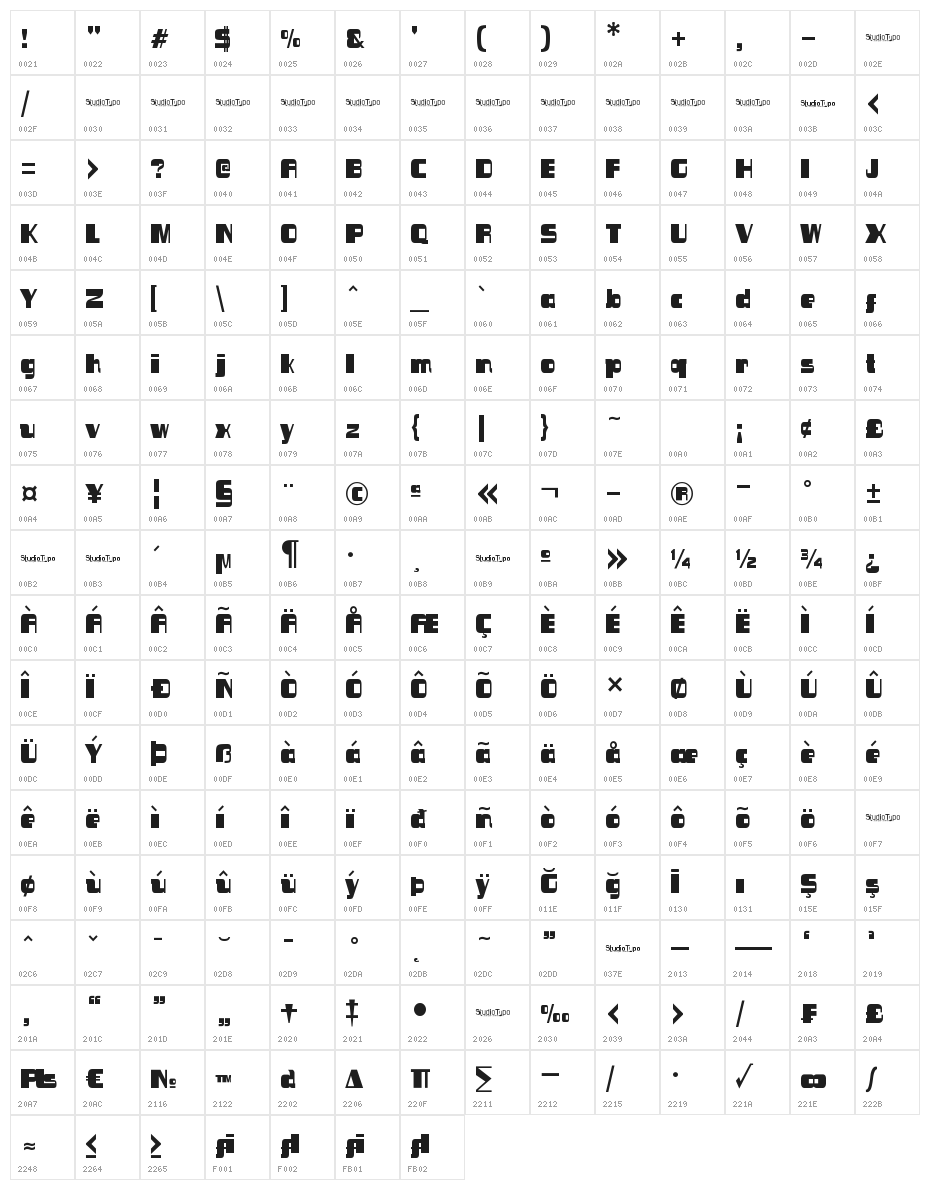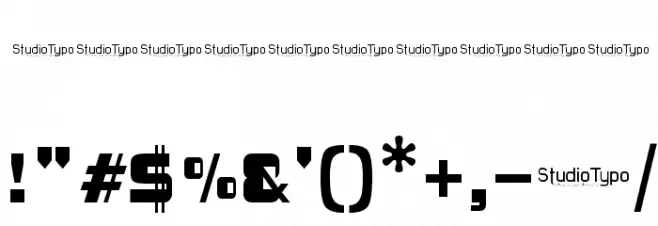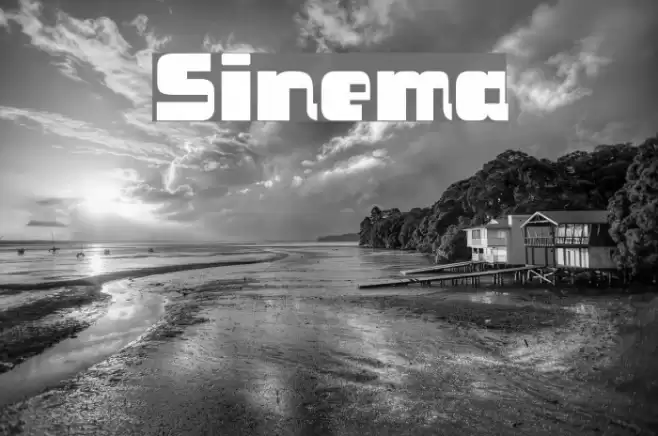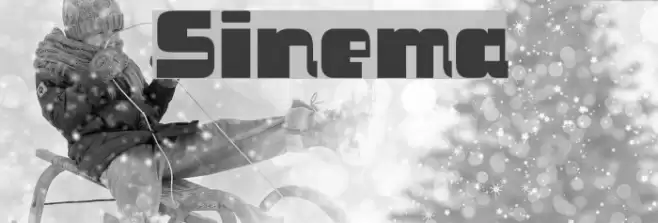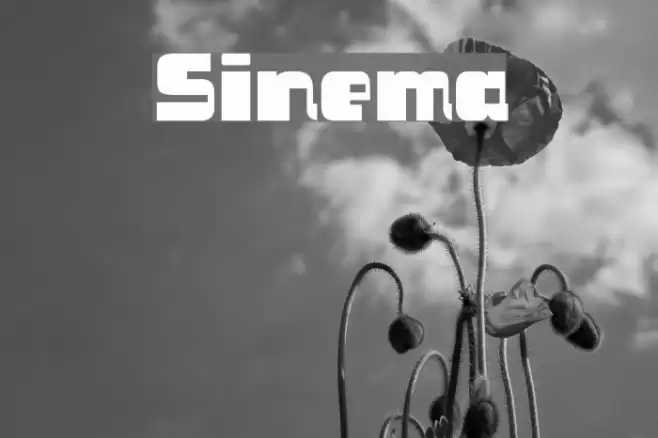
Sinema Font
Sinema Description
This font features a bold, geometric style with strong, block-like characters. The uppercase letters are uniform in height, with a consistent width that gives a solid and impactful appearance. The lowercase letters maintain the boldness, with some unique cuts and angles that add a modern flair. The numbers and special characters follow the same robust design, ensuring a cohesive look across all text. This font is ideal for making a statement, with its high visibility and striking presence.